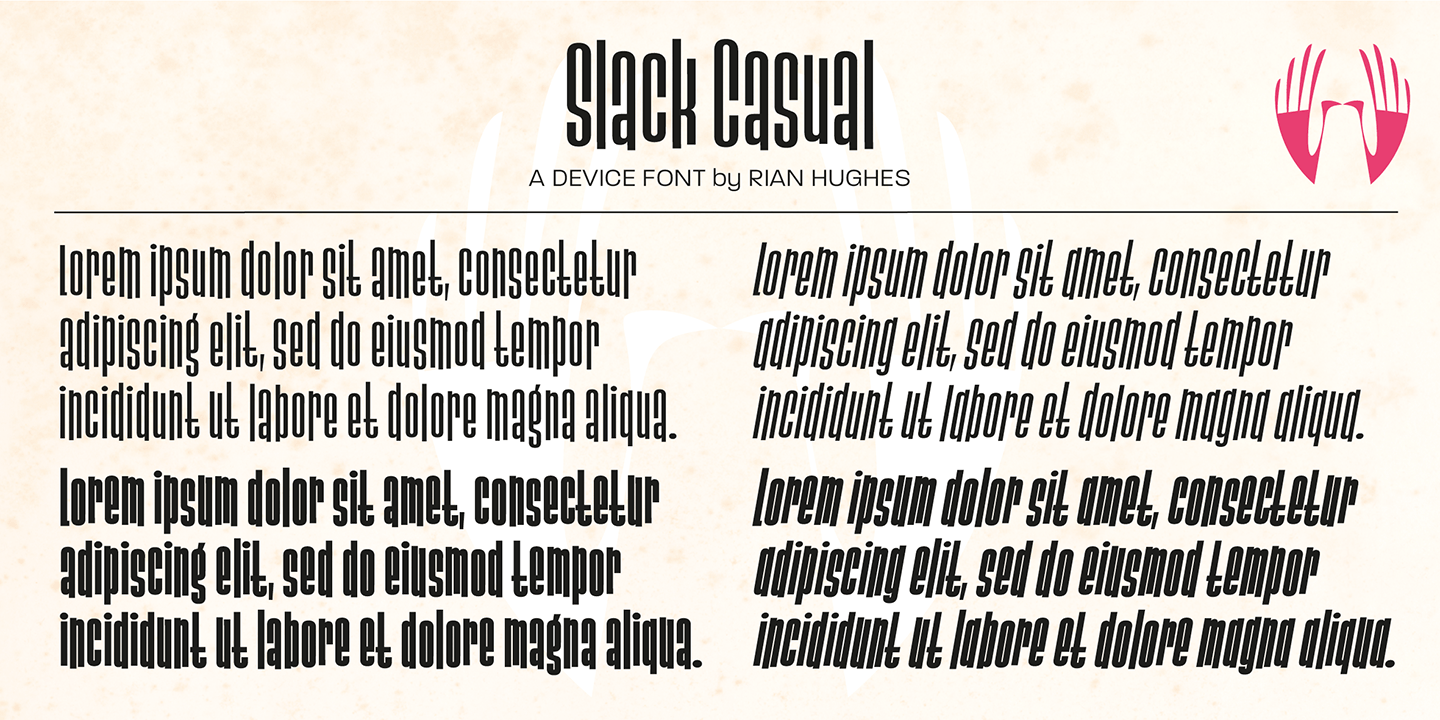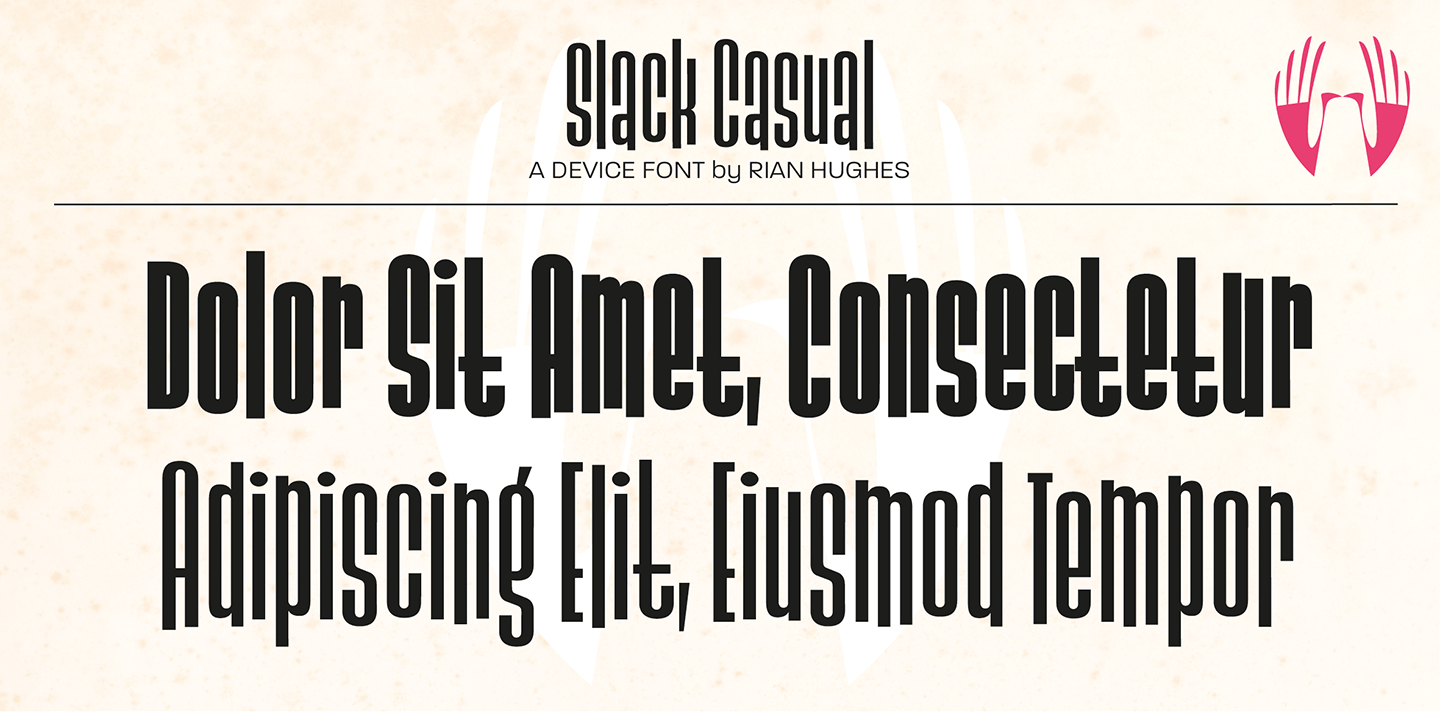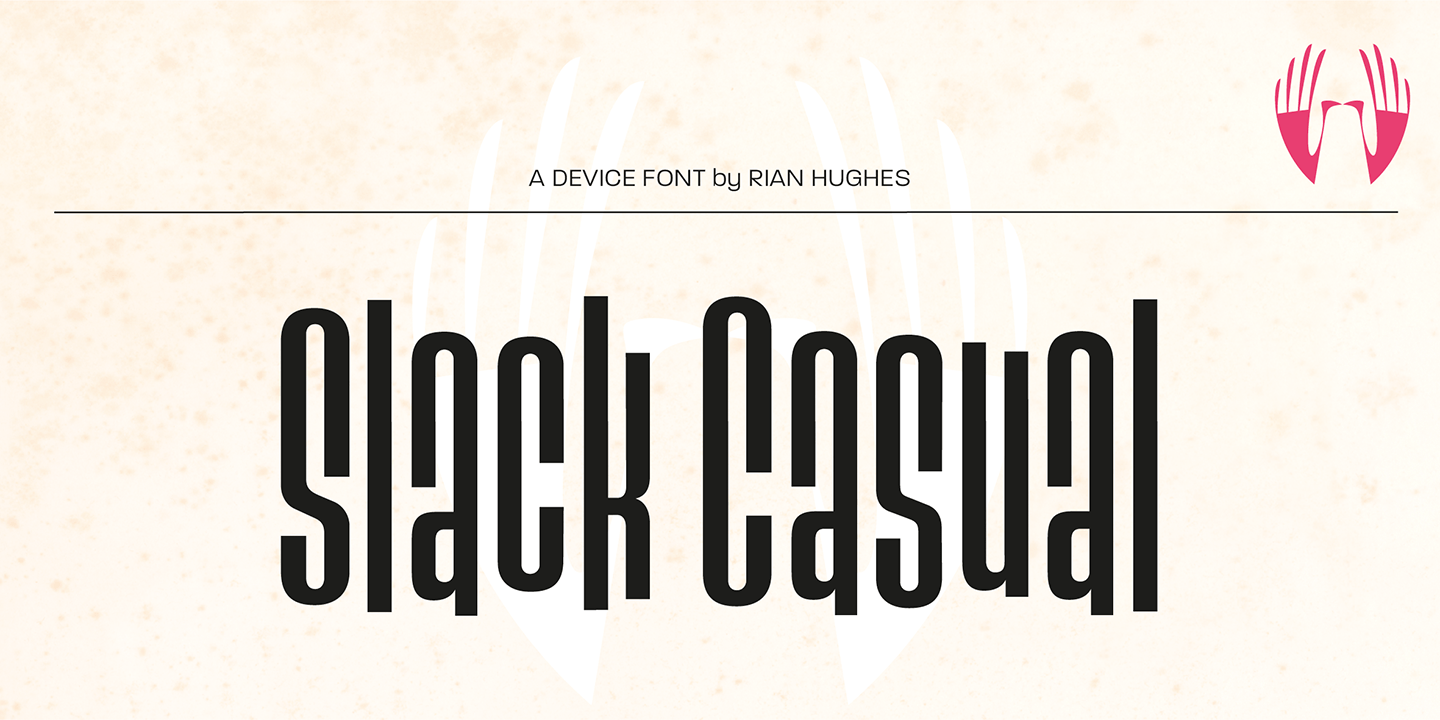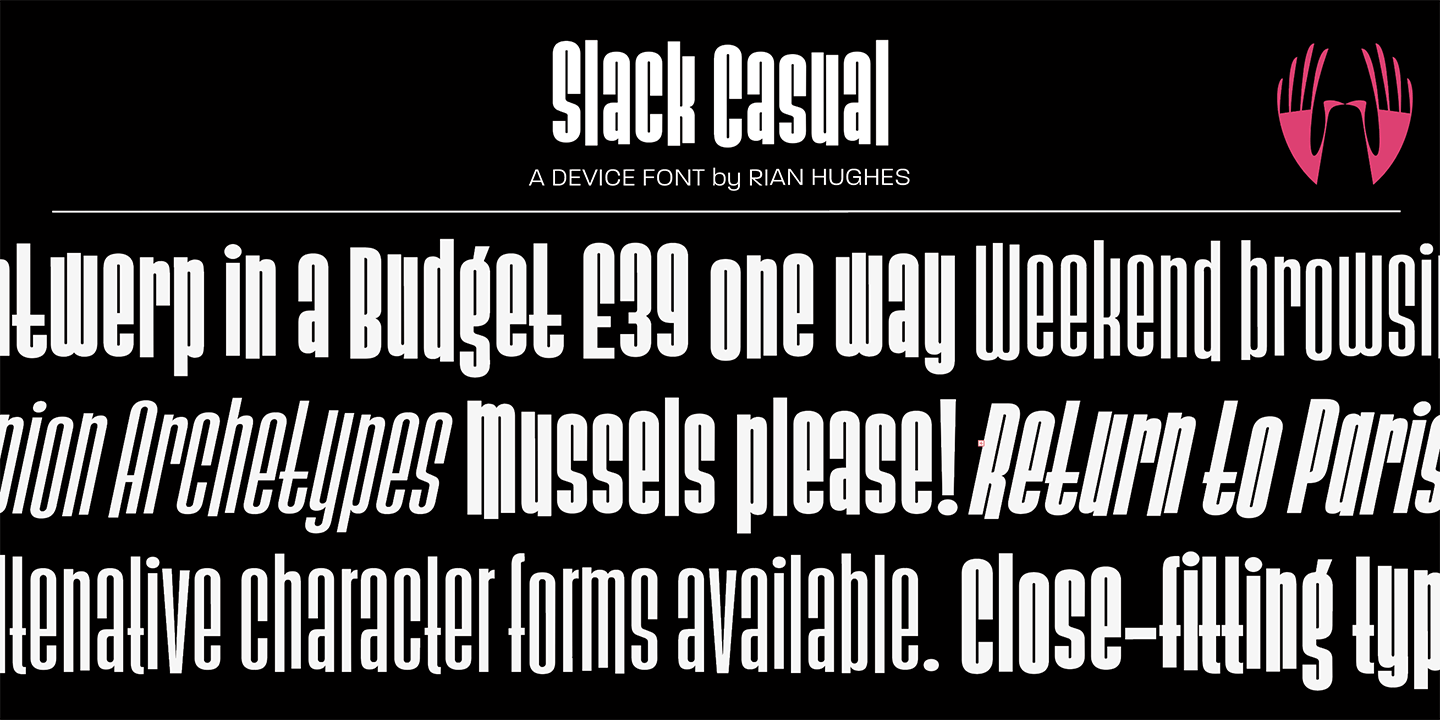
Slack Casual
Buy NowSlack Casual is a playful sans serif with a groovy, offbeat spirit. Its casual shapes and lively italic companions give it an easygoing, expressive look that feels right at home in retro-inspired work, especially anything leaning into 1960s and 1970s flavor.
This 4-style family includes Medium, Medium Italic, Bold, and Bold Italic, giving you a useful range for punchy headlines, posters, packaging, branding, and other display settings where you want something fun without losing clarity. The bolder weights bring extra impact, while the italics add movement and personality.
Created by Device, this family is a strong choice for designers looking for a wacky, upbeat voice with a clean sans serif foundation. It has the kind of character that can make logos, promotional graphics, and standout editorial moments feel more relaxed, colorful, and memorable.